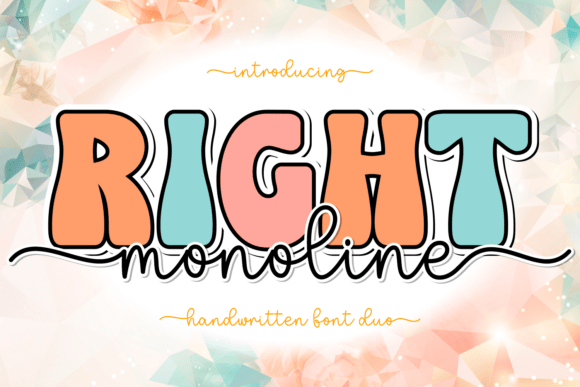
Right Monoline: A Friendly Display Font for Human-Centered Web Design
I was halfway through refining the hero section of a new coaching website—soft pastel background, warm tone, clear value proposition—when the headline just didn’t *breathe*. The current sans serif felt competent but distant. I swapped it out for Right Monoline, and suddenly the page leaned in. Not louder—but kinder. That’s the first thing you notice: Right Monoline isn’t shouting. It’s smiling with its rounded terminals, leaning gently forward like a friendly nod. As a display font, it’s intentionally childish in the best way: unselfconscious, approachable, and full of quiet confidence.
Right Monoline belongs to that rare category of display fonts that feel handmade without sacrificing digital clarity. Its monoline construction—consistent stroke weight throughout each letter—gives it clean rhythm at small sizes and strong presence at large ones. There’s no dramatic contrast or sharp serifs to distract; instead, it relies on soft curves, open counters, and generous spacing to invite the eye. It reads effortlessly on screen, even over subtle image overlays or light-colored gradients—no harsh edges to fight against background texture or motion.
In my coaching site project, I used Right Monoline exclusively for the hero headline (“You Belong Here”) and two key section headers: “How It Works” and “Start Your Journey.” I kept body copy in a neutral, highly legible sans serif (Inter, variable-weight) — a classic pairing that lets Right Monoline shine without overwhelming. That contrast is essential: display fonts like Right Monoline aren’t meant for paragraphs. They’re punctuation marks for your layout—moments of warmth, intention, and brand voice.
What surprised me most was how well it held up on mobile. At 28px on a 375px viewport, the letters remained distinct and friendly—not cramped or fuzzy. No hint of the “blobby” effect some playful fonts develop when scaled down. That’s thanks to its thoughtful x-height and generous letter spacing, built-in design decisions that translate directly to responsive performance. I tested it over a dark-mode banner too: with light tracking and modest letter-spacing, it stayed legible and warm—even against charcoal backgrounds.
Right Monoline works beautifully beyond hero sections. On a boutique online store’s seasonal campaign banner (“Summer Sketchbook Kit”), it added tactile charm without looking crafty to the point of unprofessionalism. On a course sales page, it gave the CTA button (“Grab Your Spot”) a gentle urgency—inviting, not demanding. For a creative portfolio homepage, it anchored the name in the header with personality, while the rest of the navigation and project titles stayed crisp and neutral. It’s especially effective where human connection matters most: welcome messages, testimonial highlights, email subject lines (in web-safe fallbacks), and digital brand kits meant for non-designers to use confidently.
That said, it’s not a one-size-fits-all solution. Right Monoline shines in short-form, high-impact contexts: headlines, logos (as logotype text), buttons, social media banners, and illustrated blog headers. It doesn’t scale gracefully into long navigation menus or dense feature lists. And while it’s wonderfully expressive, it’s not inherently authoritative—so I’d avoid it for legal disclaimers, technical documentation headers, or enterprise SaaS dashboards where gravitas matters more than glee.
Pairing it thoughtfully makes all the difference. With a warm, humanist sans serif (like Poppins or Manrope), Right Monoline feels grounded and intentional. With a restrained serif (such as Literata or IBM Plex Serif), it gains quiet editorial depth—great for blogs or storytelling-focused landing pages. Avoid pairing it with other decorative fonts (scripts, heavy serifs, or ultra-thin displays); the contrast would compete rather than complement. And never force it into tight spaces: give it breathing room in line-height (1.3–1.4), tracking (+20–40 units for headings), and margin.
I’ve seen designers reach for “friendly” fonts and land on something cutesy or dated—oversaturated with bounce or exaggerated quirks. Right Monoline avoids that trap. Its friendliness comes from simplicity, not gimmickry. It doesn’t try to be everything—it knows its role. In a world of algorithm-driven interfaces and increasingly transactional digital experiences, choosing a font like Right Monoline is a small but meaningful act of human-centered design. It says, “We see you. We’re glad you’re here.”
For web designers, UI creators, and digital product teams building with empathy in mind, Right Monoline isn’t just another display font. It’s a quiet tool for trust-building—effective in landing pages, course sales funnels, portfolio intros, and brand kits where warmth and clarity must coexist. When your goal isn’t just to inform, but to welcome—that’s when Right Monoline earns its place in the stack.